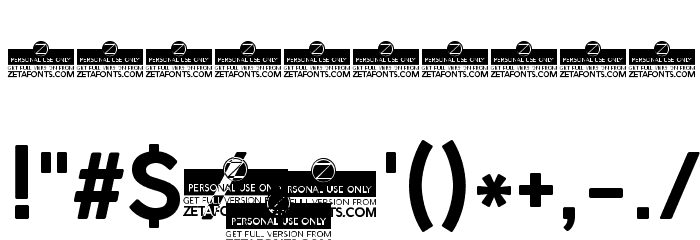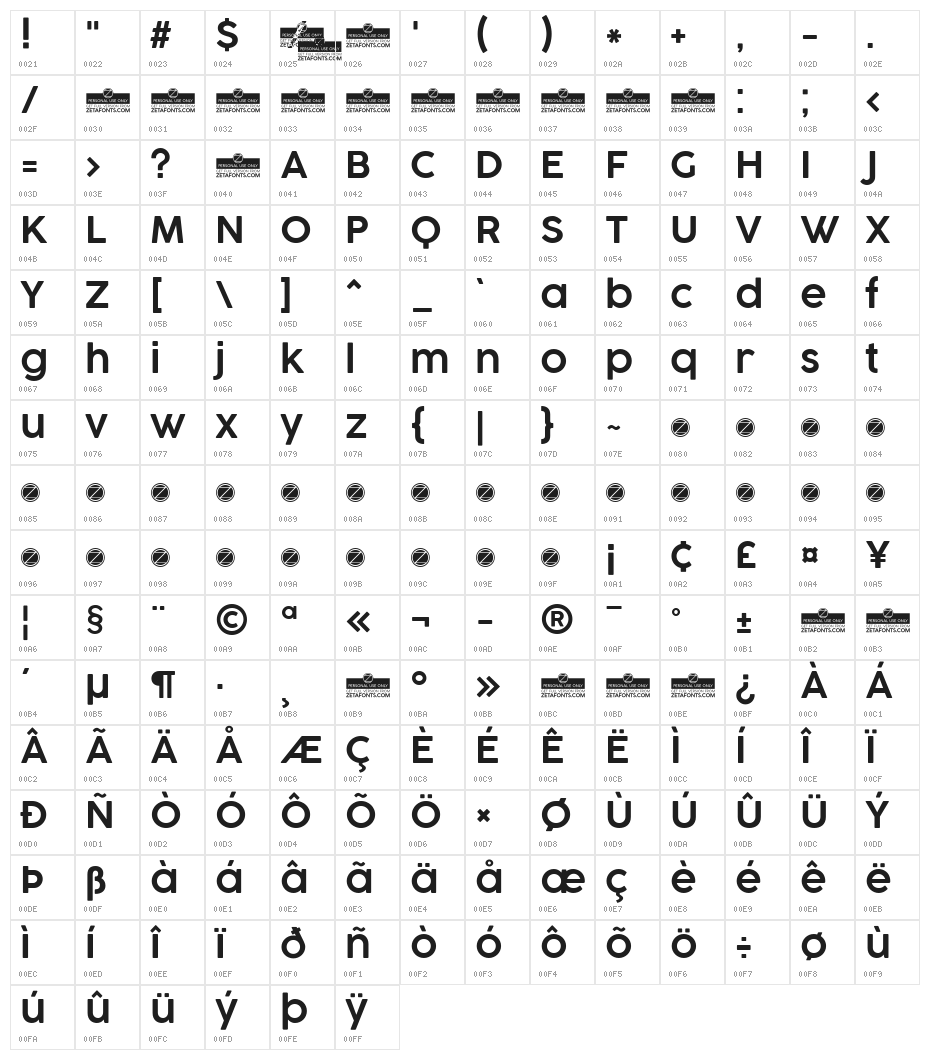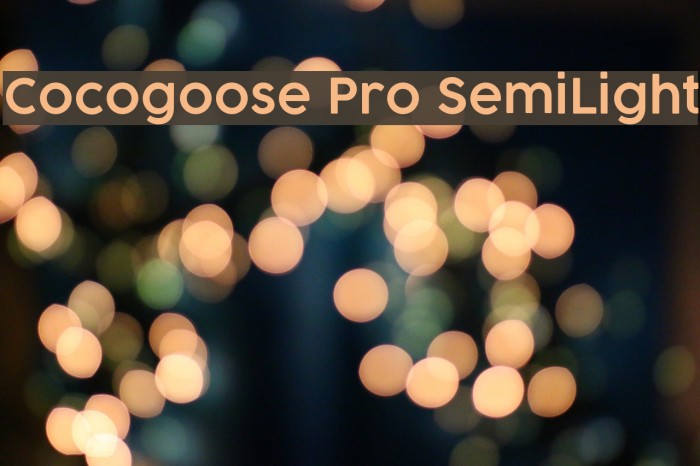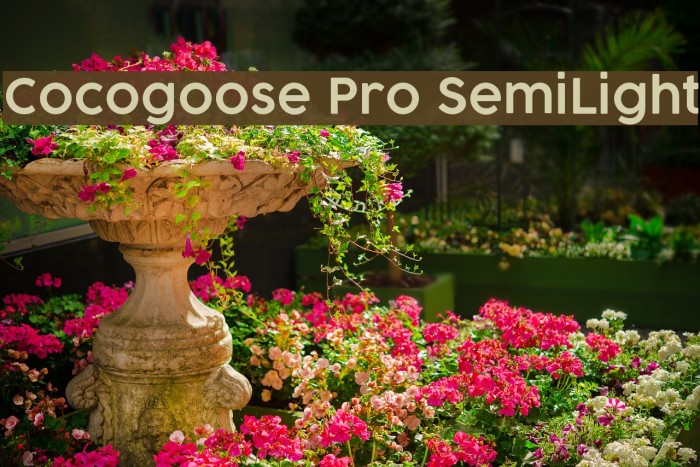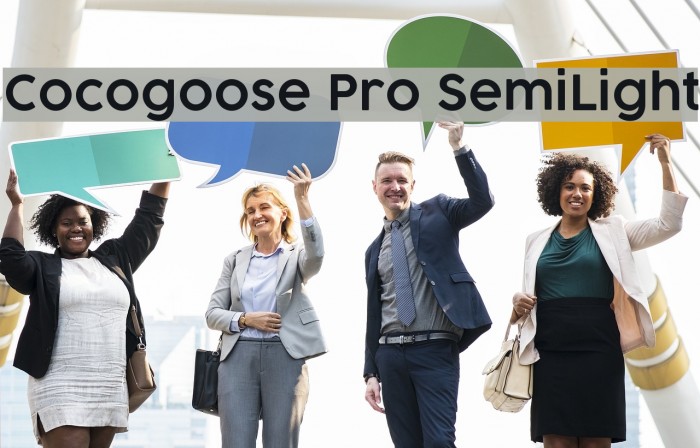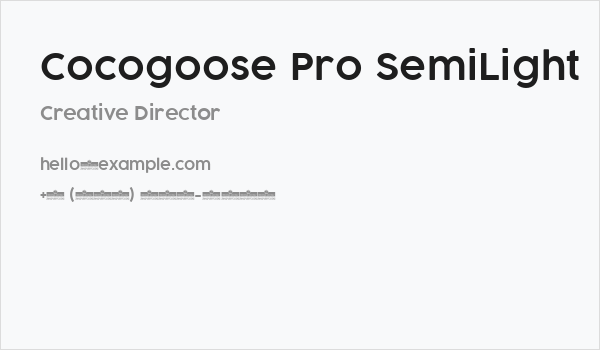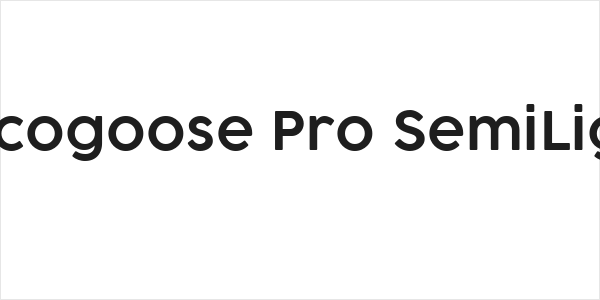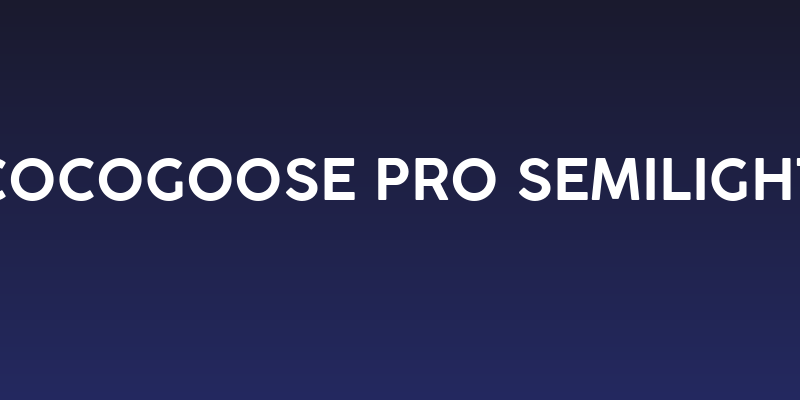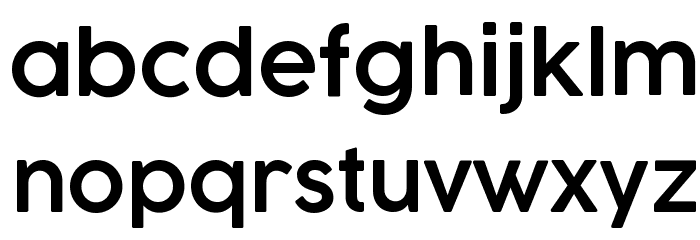
Cocogoose Pro SemiLight Font
Cocogoose Pro SemiLight Description
This font features a clean and modern sans-serif design with a semi-light weight, offering a balanced and versatile appearance. The characters are well-proportioned with a uniform stroke width, providing a harmonious and legible text. The uppercase and lowercase letters maintain a consistent style, enhancing readability. The numerals and special characters are designed to complement the alphabet, ensuring a cohesive look across various uses. Its simplicity and clarity make it suitable for a wide range of applications, from digital interfaces to print media.
| Proposed Projects | Ideal for branding, web design, user interfaces, and print materials where clarity and modernity are desired. |